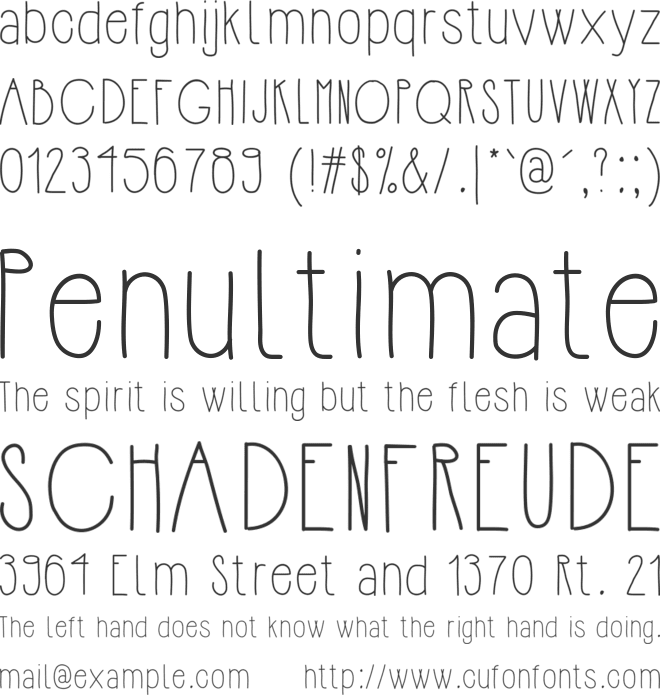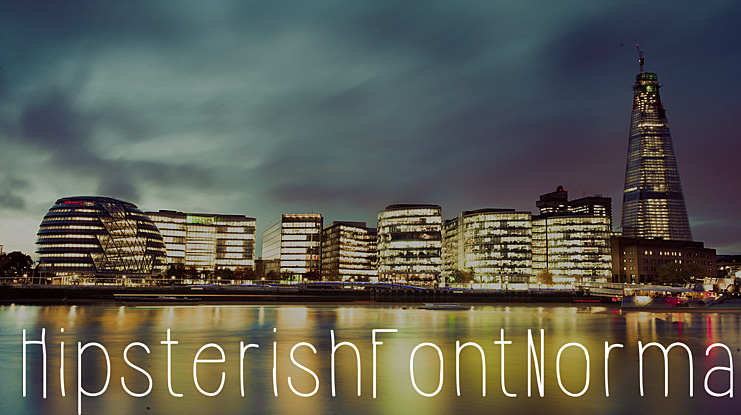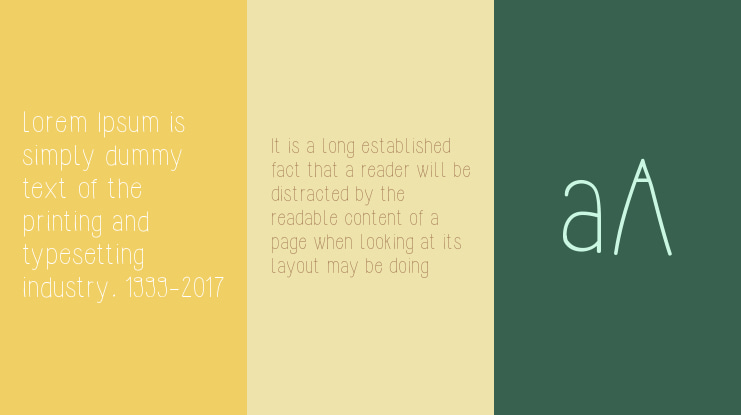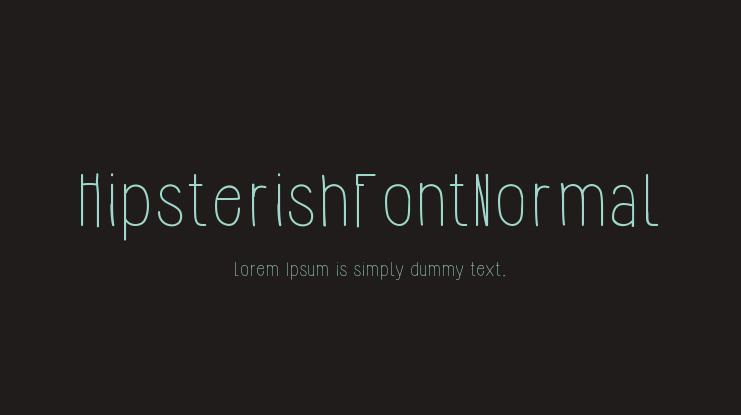
HipsterishFontNormal Font
Here is a fun hispterish font.
It contains most of the accents and special characters used in french and spanish.
Voici une police dans le genre Hipster.
Elle contient la plupart des accents et caractères spéciaux utilisés en français et en espagnol.